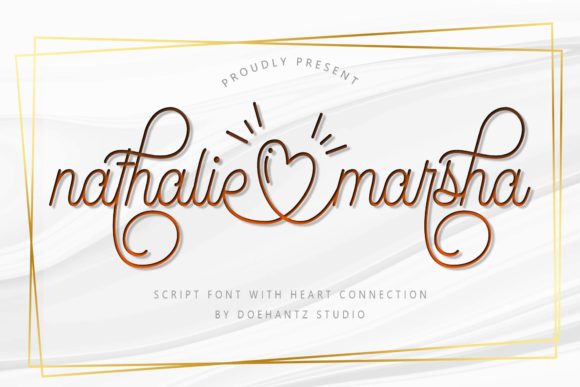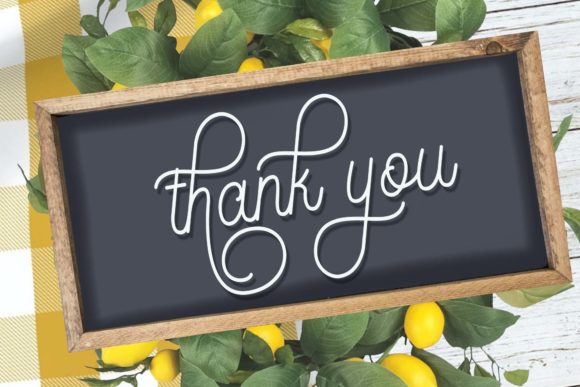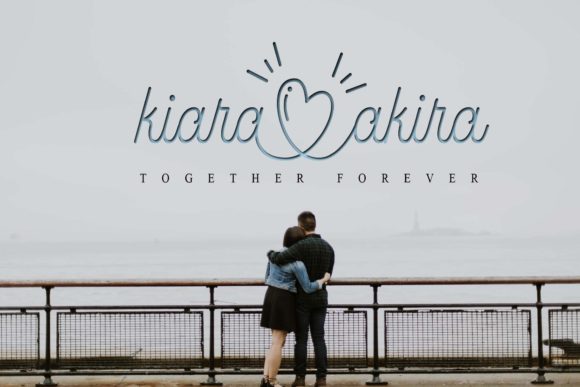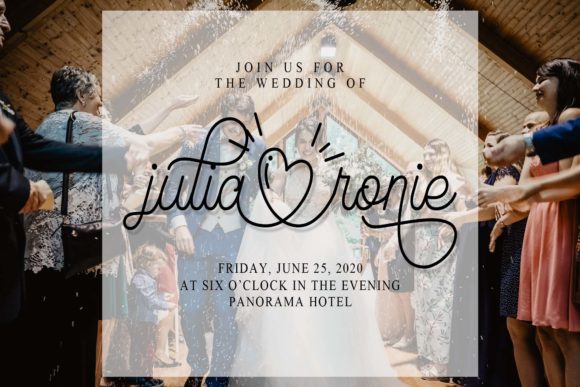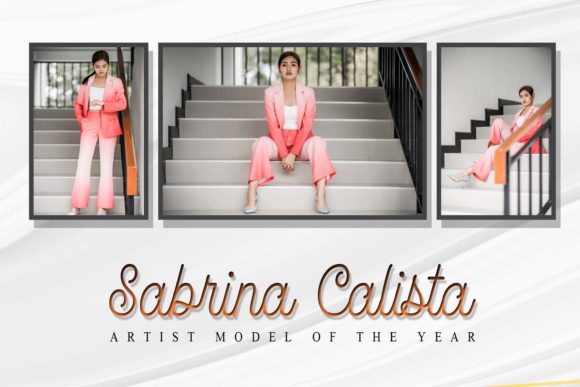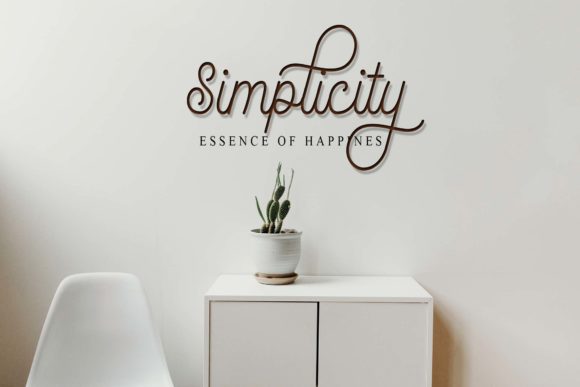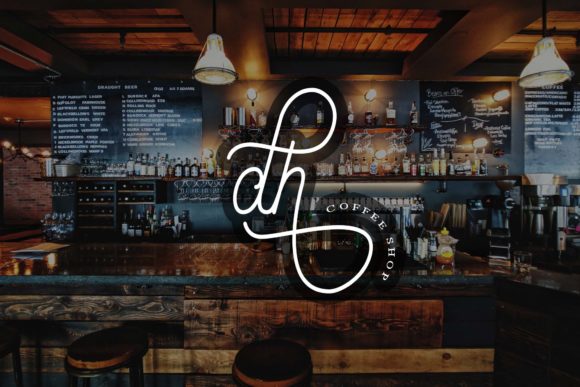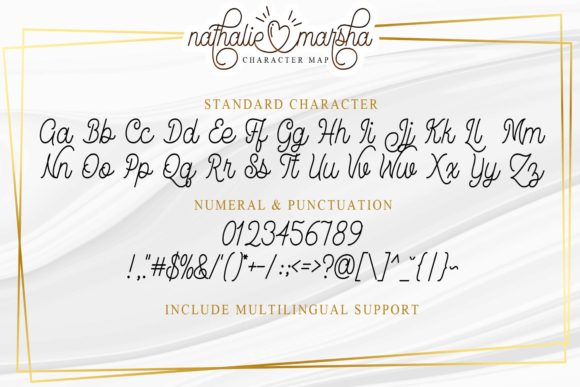
Nathalie Marsha Font
About Nathalie Marsha Font
Nathalie Marsha is a beautiful combination of timeless elegance and authentic calligraphy. It’s perfect for wedding invitations, beautiful stationary art, eye-catching social media posts, and cute greeting cards.This font is PUA encoded which means you can access all of the glyphs and swashes with ease!